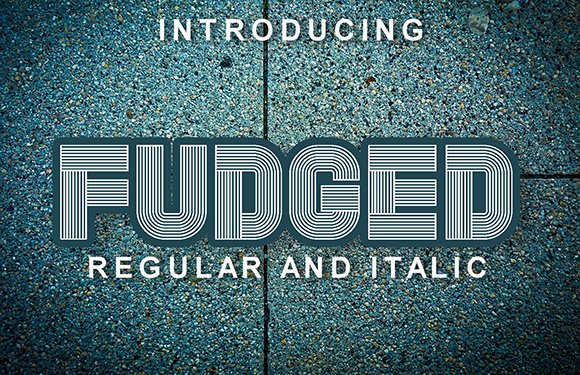
Welcome font fanatics! Introducing Fudged Font, the techno typeface that's making waves in the design world. With its bold, futuristic strokes and two captivating styles, Regular and Italic, Fudged is a font that demands attention.
Step into a realm of endless possibilities with Fudged. Its versatility knows no bounds, making it an ideal choice for flyers that command attention, posters that ignite imaginations, and prints that leave a lasting impression. Unleash your creativity and let your designs dance to the beat of Fudged's dynamic rhythm.
Discover a font that sparks emotions and ignites the senses. Fudged's digital prowess empowers you to connect with your audience on a deeper level. Whether you're crafting invitations that set the tone for unforgettable events or social media posts that capture the essence of your brand, Fudged is your ultimate companion.
Experience the fusion of power and grace with Fudged Font. Its sleek lines and sharp angles exude an air of sophistication, while its subtle curves add a touch of elegance. Let your designs embody the essence of Fudged, a font that elevates your creations to new heights of brilliance.
Don't settle for ordinary fonts. Embrace the extraordinary with Fudged Font. Its innovative design and captivating presence will transform your design journey into a symphony of creativity. Join the ranks of design enthusiasts who have discovered the power of Fudged and unlock a world of captivating possibilities.